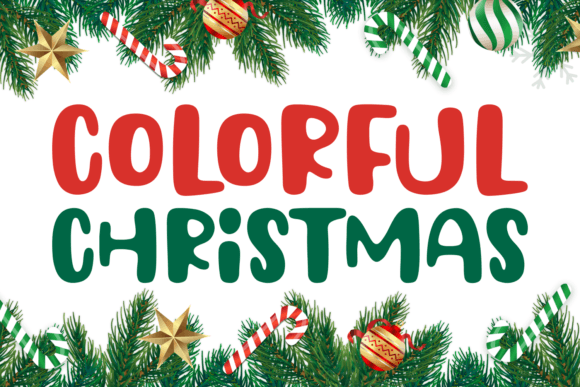
Introducing Colorful Christmas Font - your ultimate solution for capturing attention and leaving a lasting impression! Crafted by the talented Jasm from 7NTypes, this bold and captivating display font is designed to take your projects to the next level.
With its all caps style and trendy appeal, Colorful Christmas Font is the perfect choice for any occasion. Whether you're creating stunning business cards, crafting beautiful handmade goods, designing eye-catching digital content, or even making heartfelt greeting cards, this font has got you covered.
What sets Colorful Christmas Font apart is its unique ability to add a touch of excitement and charm to your work. Its vibrant and playful nature instantly grabs attention and creates a sense of joy and celebration.
Imagine the impact of using this font on your business cards. It will make your contact information stand out, leaving a memorable impression on potential clients and partners. The bold and stylish letters will effortlessly convey your professionalism and creativity, setting you apart from the competition.
When it comes to crafting, Colorful Christmas Font becomes your ultimate tool. Its versatility allows you to unleash your creativity and design stunning pieces that reflect your personality. From scrapbooking to DIY projects, this font will make your creations truly one-of-a-kind.
Digital designers will find Colorful Christmas Font to be an invaluable asset. Its bold and attention-grabbing letters are perfect for creating engaging social media posts, captivating website headers, and eye-catching banners. With this font, your designs will not only stand out but also evoke emotions in your audience, driving them to take action.
And let's not forget about presentations. Colorful Christmas Font will transform your slides into visually stunning masterpieces. Whether you're presenting at a conference, pitching a new idea, or simply sharing information, this font will captivate your audience and keep them engaged from start to finish.